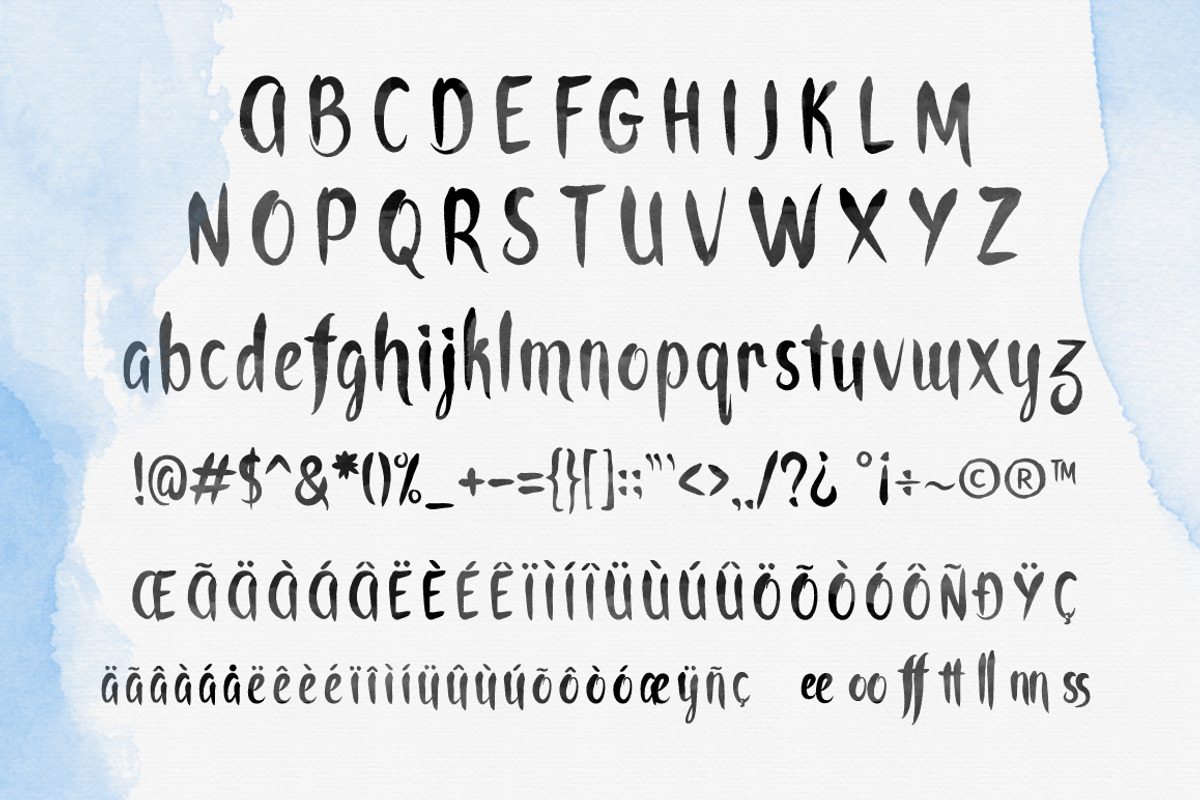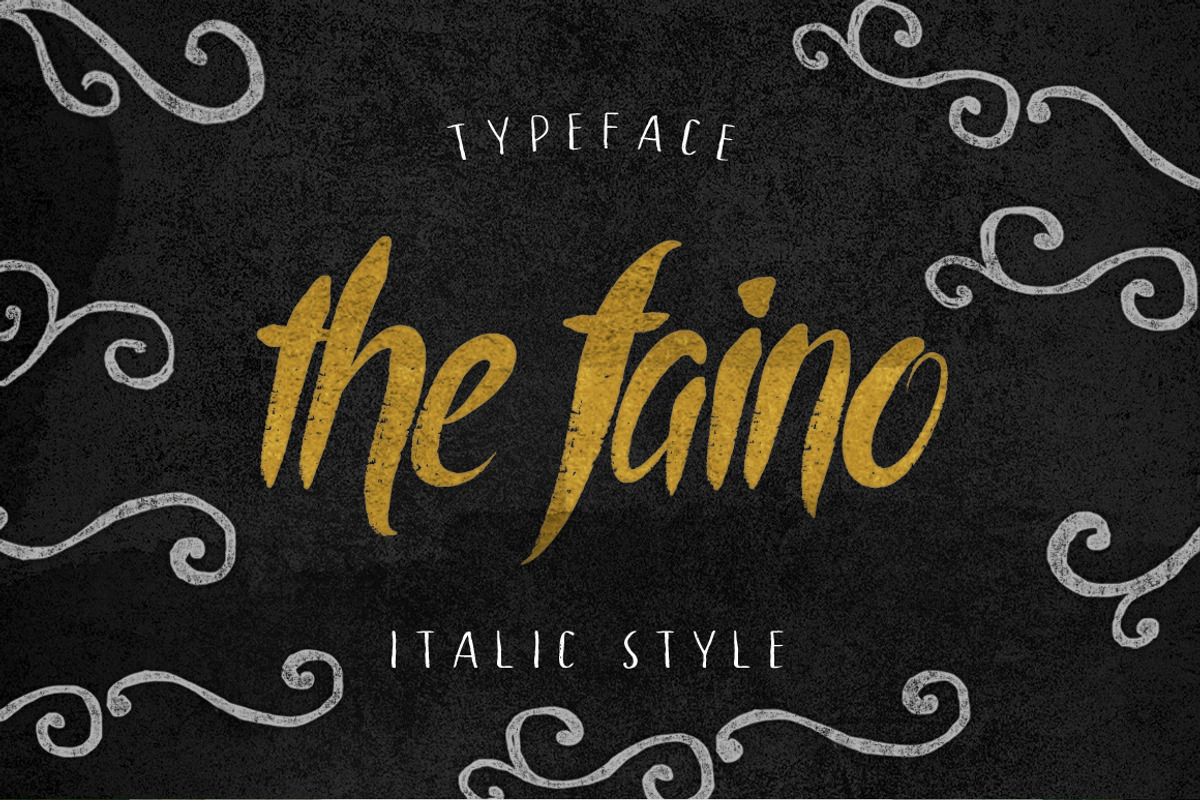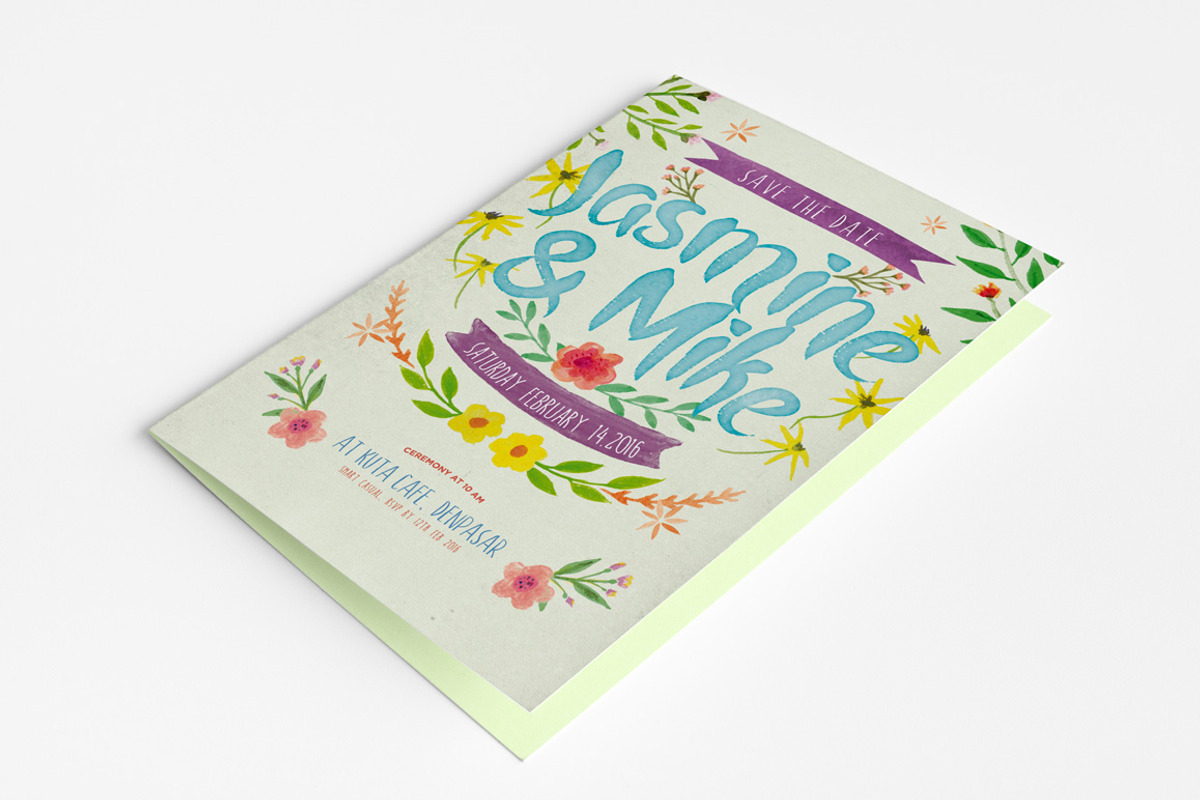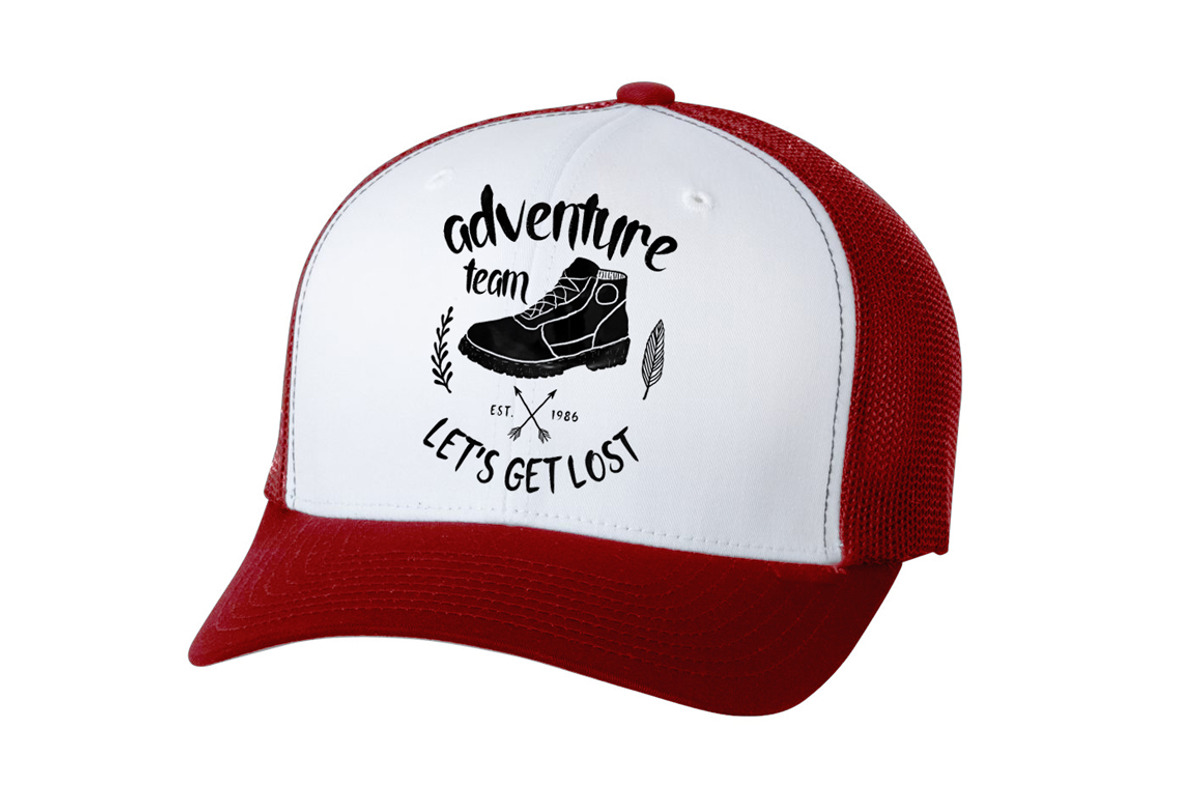
the faino typeface
the faino typeface by alit design is a font selected for branding, posters, packaging, typography.
- DUO FONTS PACKAGES the faino is a font that uses a brush handwriting font style.
- Not only that, you also get italic character of this font beside regular character with in this font package.
- Character Set A-Z
- Contextual Alternates
Why the faino typeface is worth a look
the faino typeface by alit design fits naturally into Branding, posters, packaging, typography.